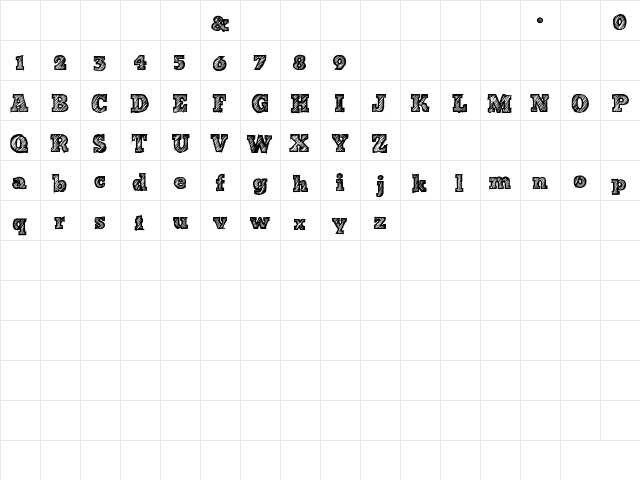
Bad Striped Regular
| Designer | Imagex |
Design Context for Bad Striped Typeface
Bad Striped is a composed and adaptable typeface that performs quietly and consistently across a wide range of design contexts.